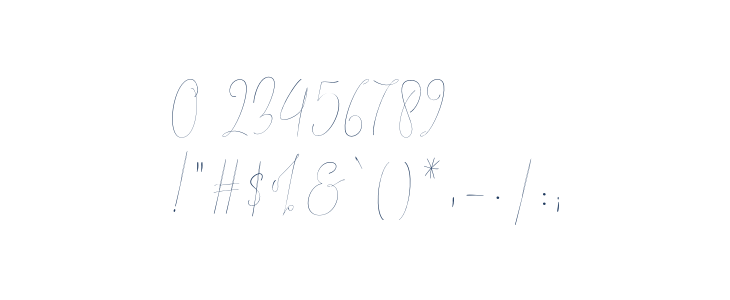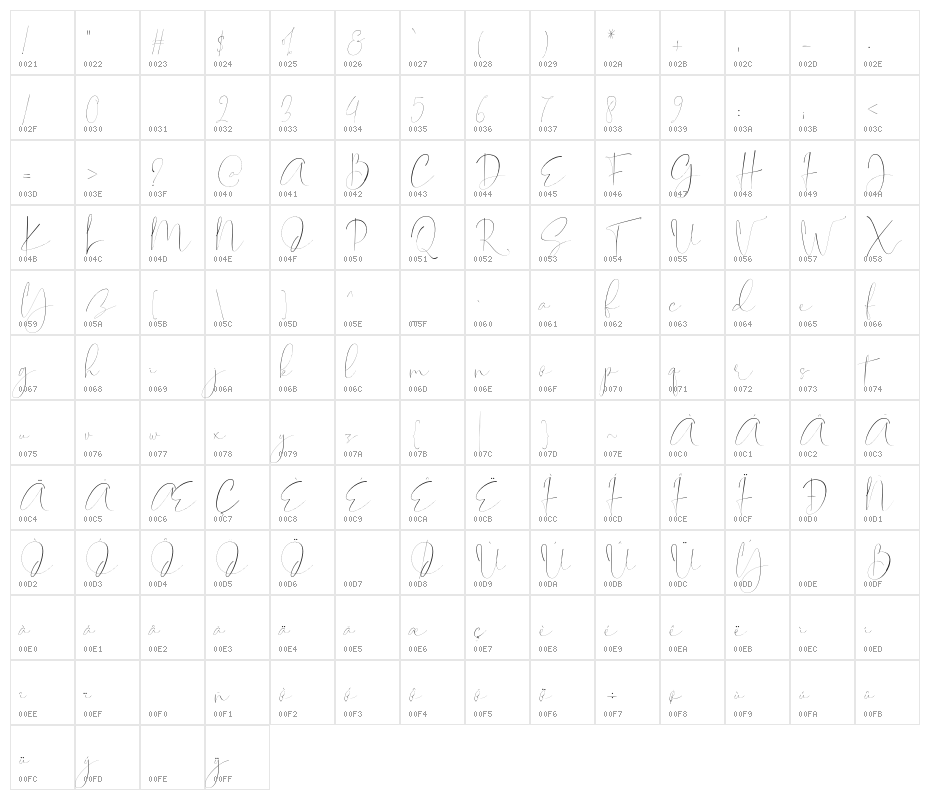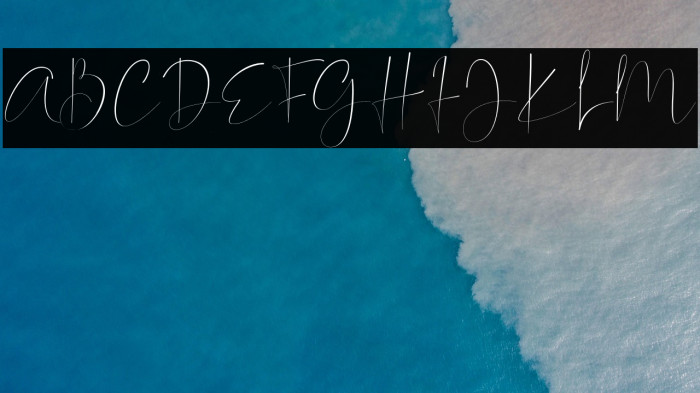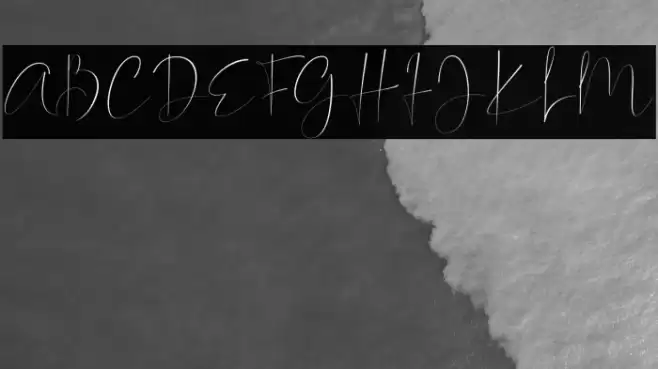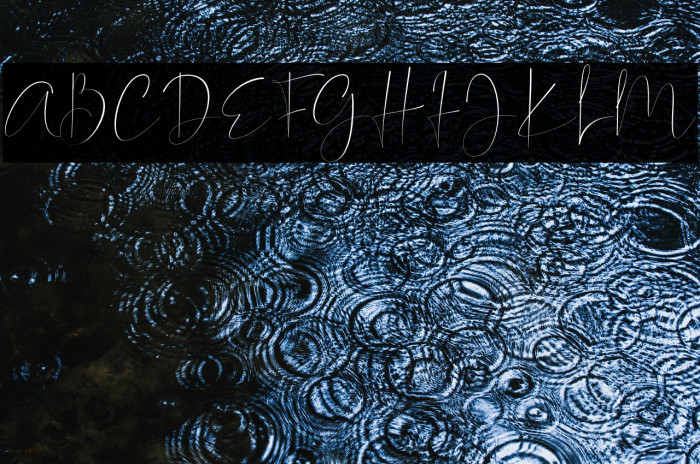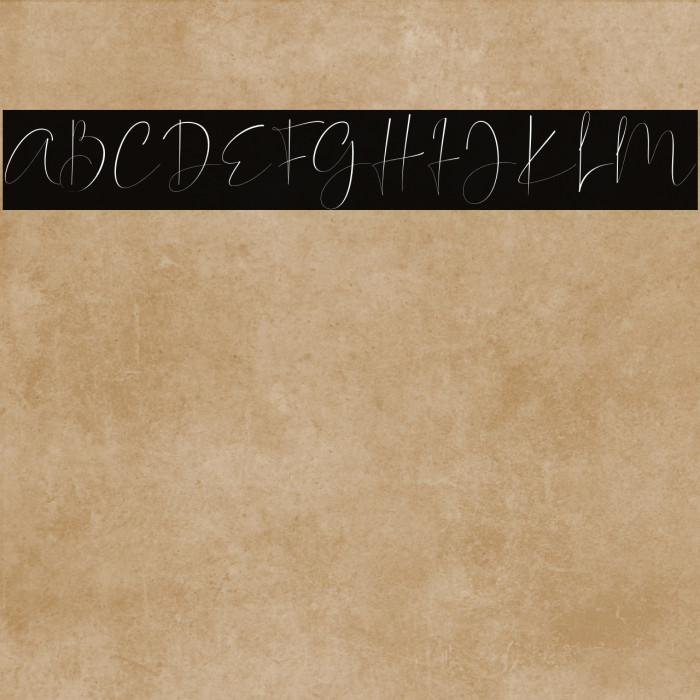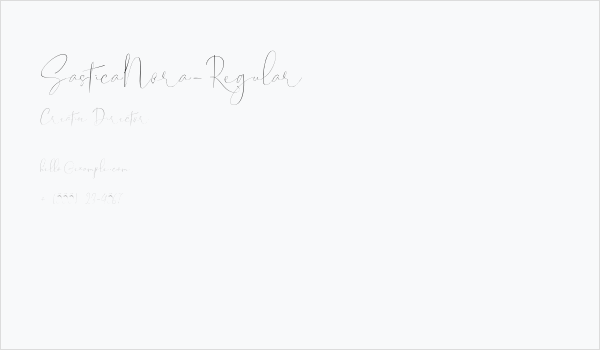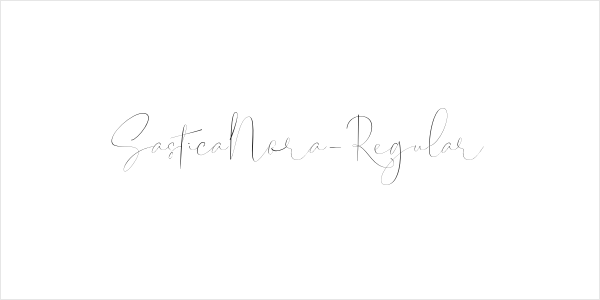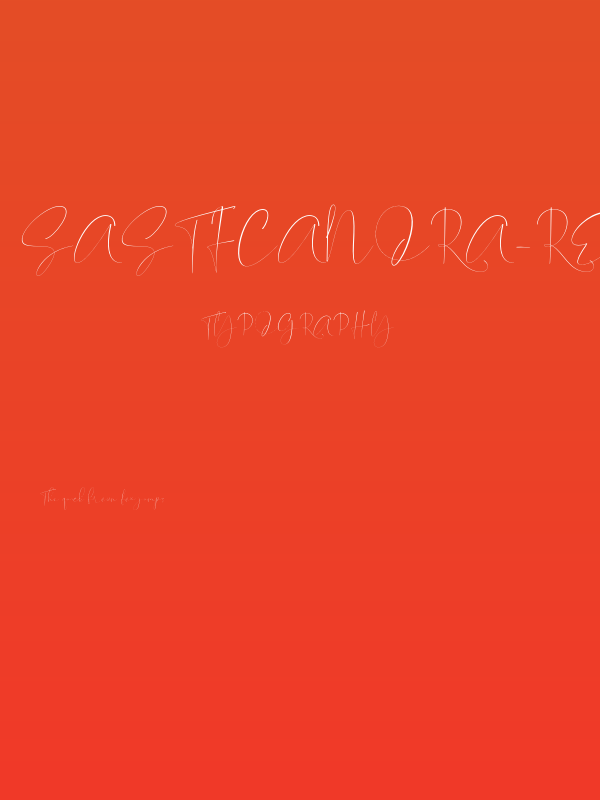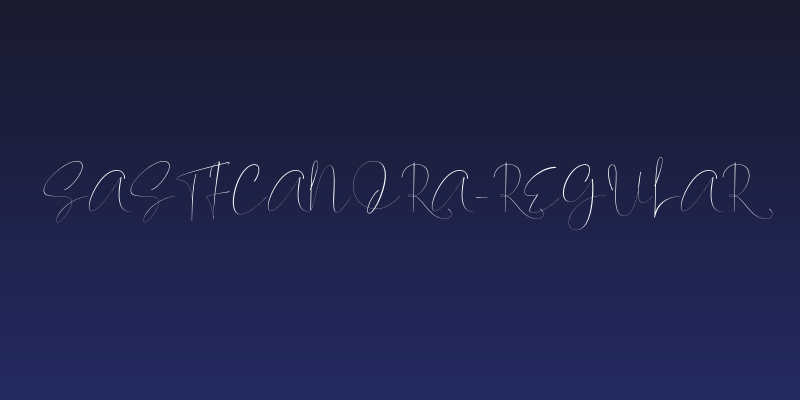
SasticaNora-Regular Font
SasticaNora-Regular Description
This font features an elegant and flowing script style, characterized by its delicate and graceful letterforms. The uppercase letters are tall and slender, with gentle curves and loops that give a sense of fluidity and movement. The lowercase letters maintain a consistent flow, with smooth connections between each character, enhancing the script's cohesive appearance. The numerals are similarly styled, with a refined and sophisticated look. Special characters are thoughtfully designed to match the overall aesthetic, adding versatility to the font's use. This font's thin strokes and airy design make it ideal for projects that require a touch of elegance and sophistication.